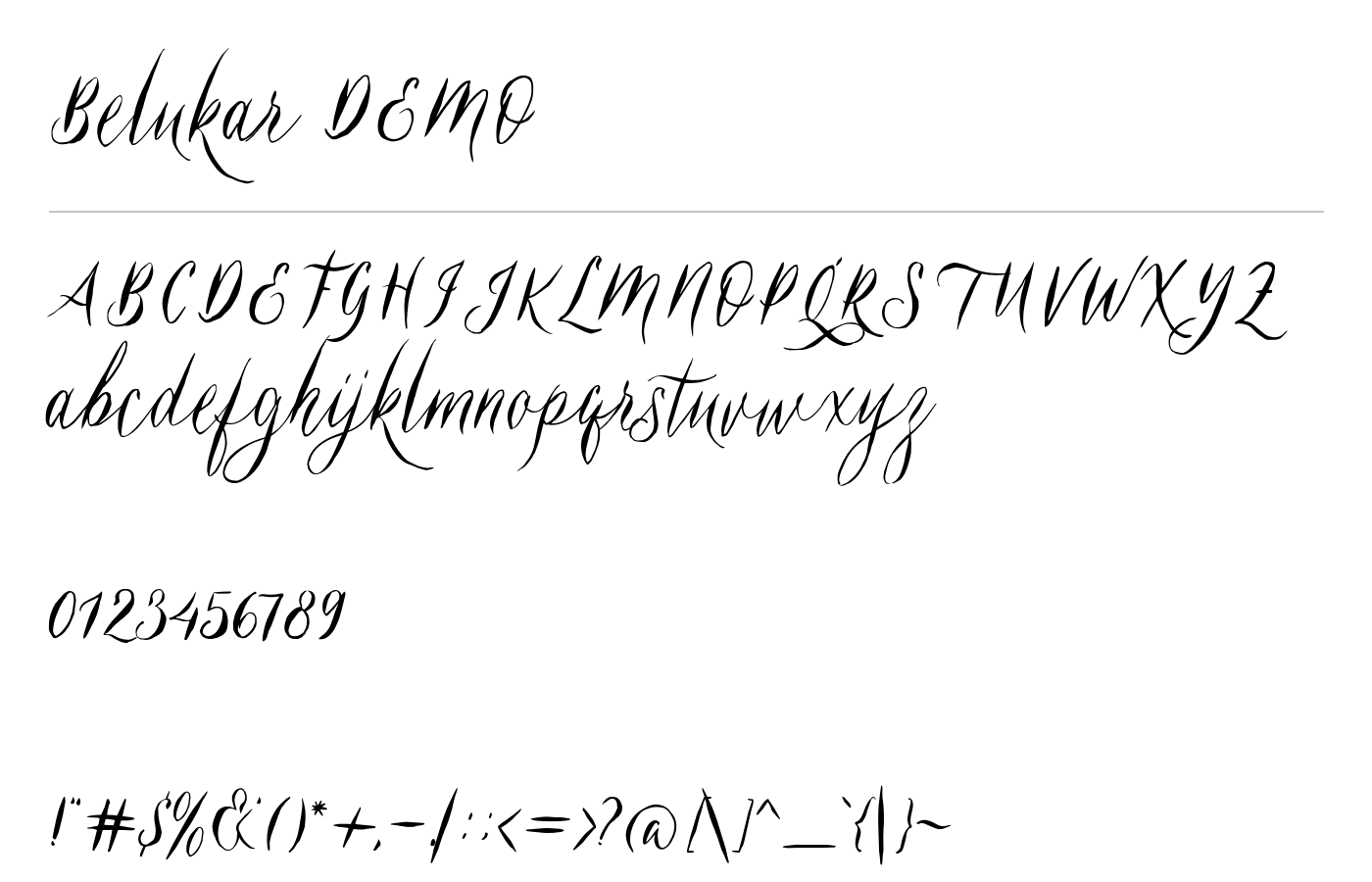
Belukar DEMO is an elegant, script-style font with a fluid, handwritten feel that combines delicate thin strokes with dynamic, sweeping curves. Its slender letters and graceful flourishes make it ideal for sophisticated branding, invitations, or fashion-oriented designs that seek a romantic and refined touch. This font shines in display use where a personal, artistic vibe is desired, lending a sense of luxury and creativity to any project.
Belukar DEMO Font
About Belukar DEMO Font